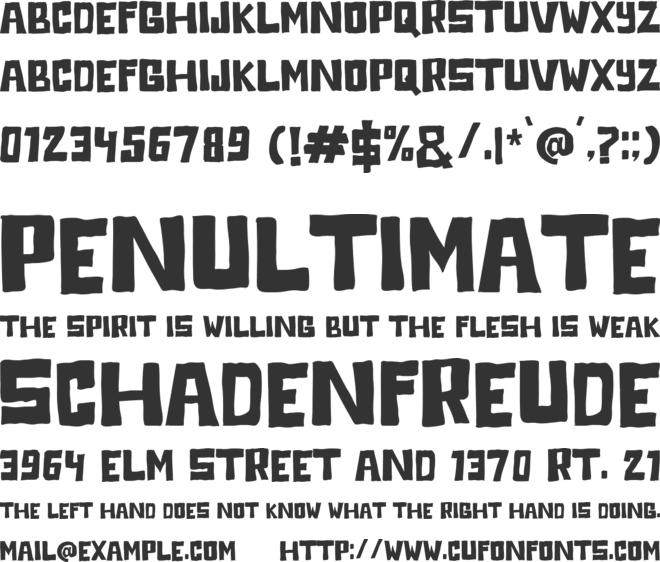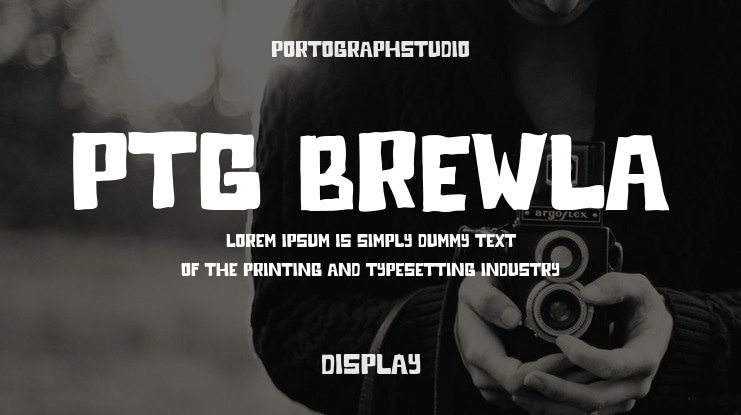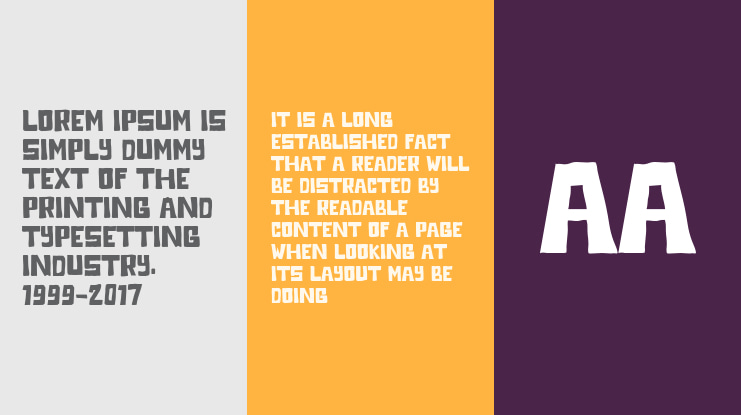
PTG Brewla Font
PTG Brewla is a bold and expressive display font inspired by the warmth of a coffee shop. With bold, organic, and characterful letterforms, this font evokes a warm, freshly brewed cup of coffee.
Suitable for cafe branding, menu boards, coffee packaging, event posters, and creative designs that aim for a cozy yet bold look. The name “Brewla” itself comes from the words brew (coffee brew) and “la,” which conveys a warm, light, and memorable touch.